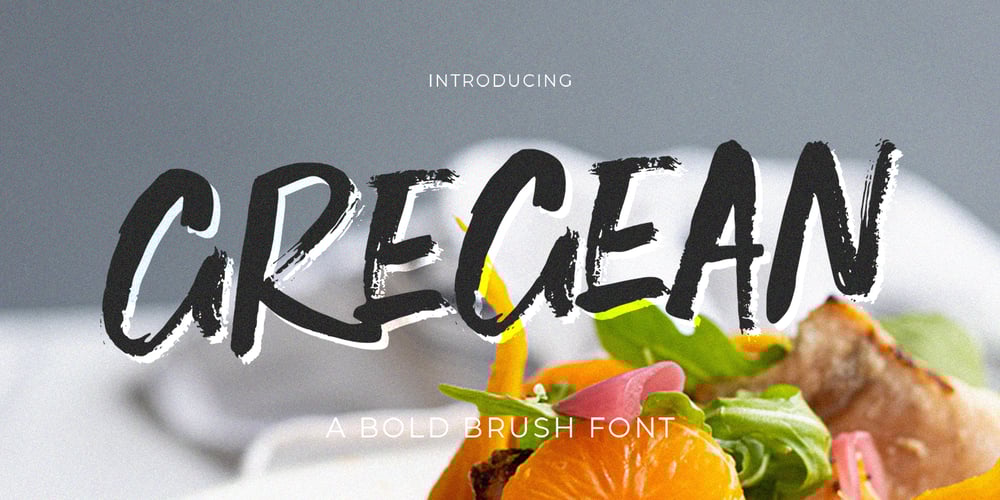
Gregean Brush
Gregean Brush font
Gregean Brush Font Family was designed by khaidir and published by Gatype. Gregean Brush contains 1 styles and family package options. Gregean Brush is a relaxed brush font with a fine grit texture. This font has an irregular treatment between characters to give it a more realistic look. Suitable for use on title designs such as book titles, stationery designs, quotes, branding, logos, clothing, invitations, greeting cards, t-shirts, packaging designs, posters, and others.The Gregean Brush has the texture of a dry brush pen and the Solid is a slightly cleaner version.Thank You! – Gatype